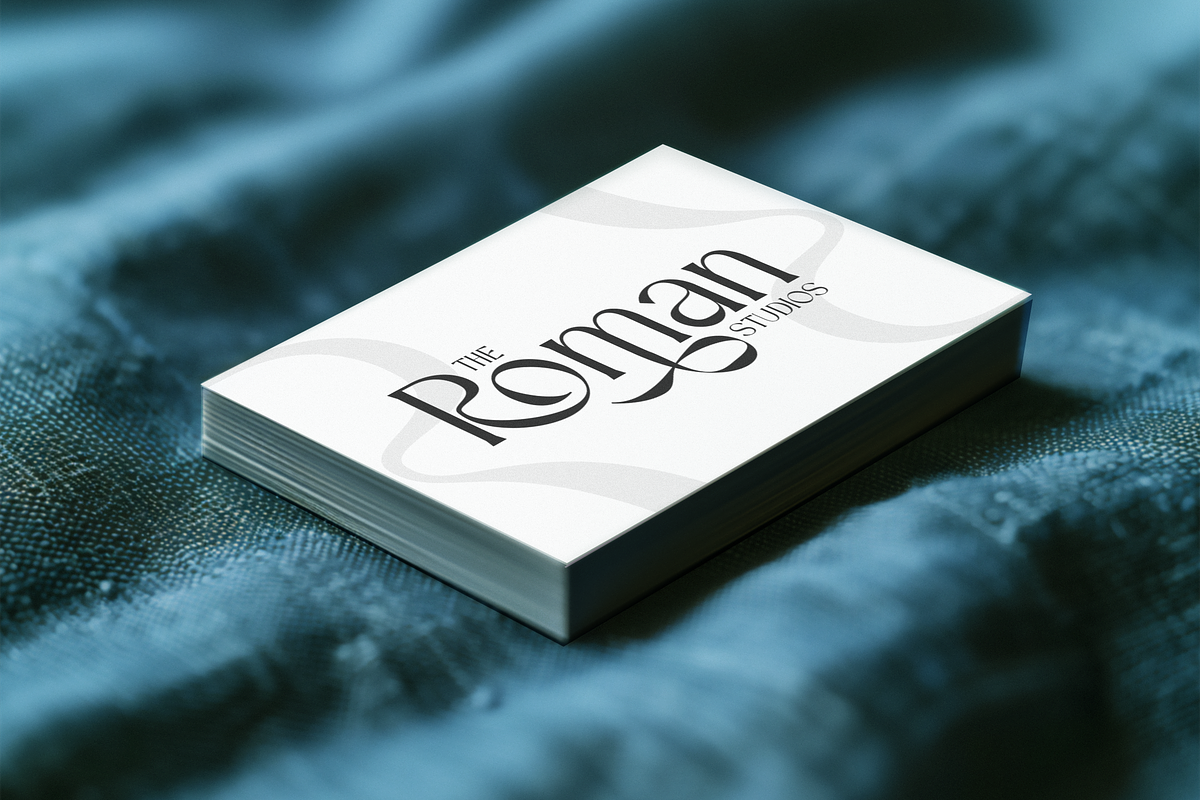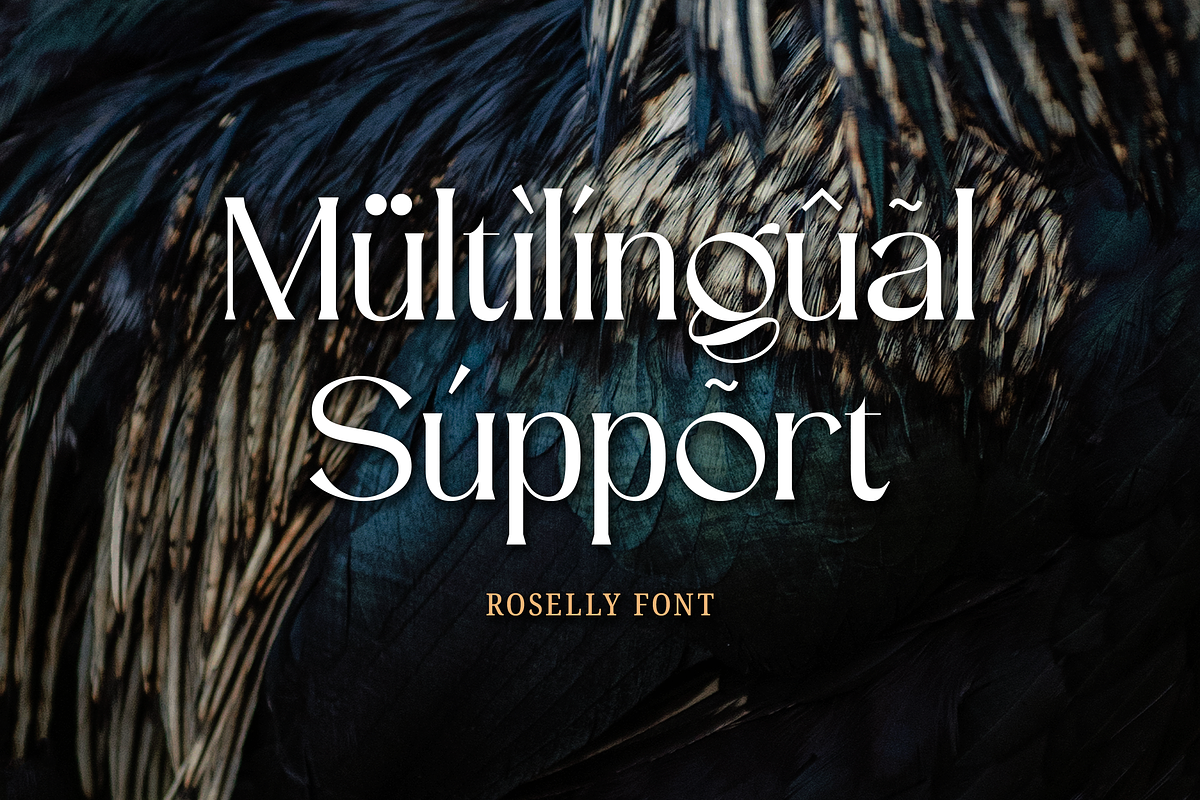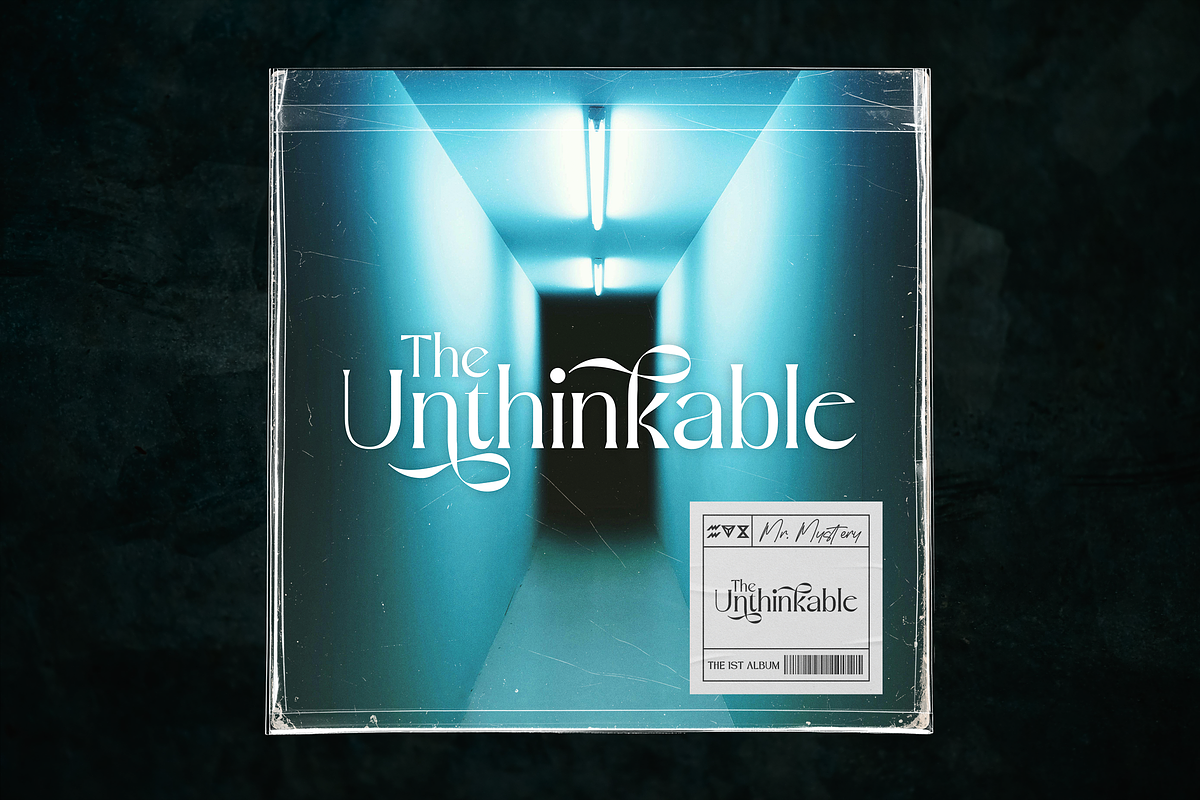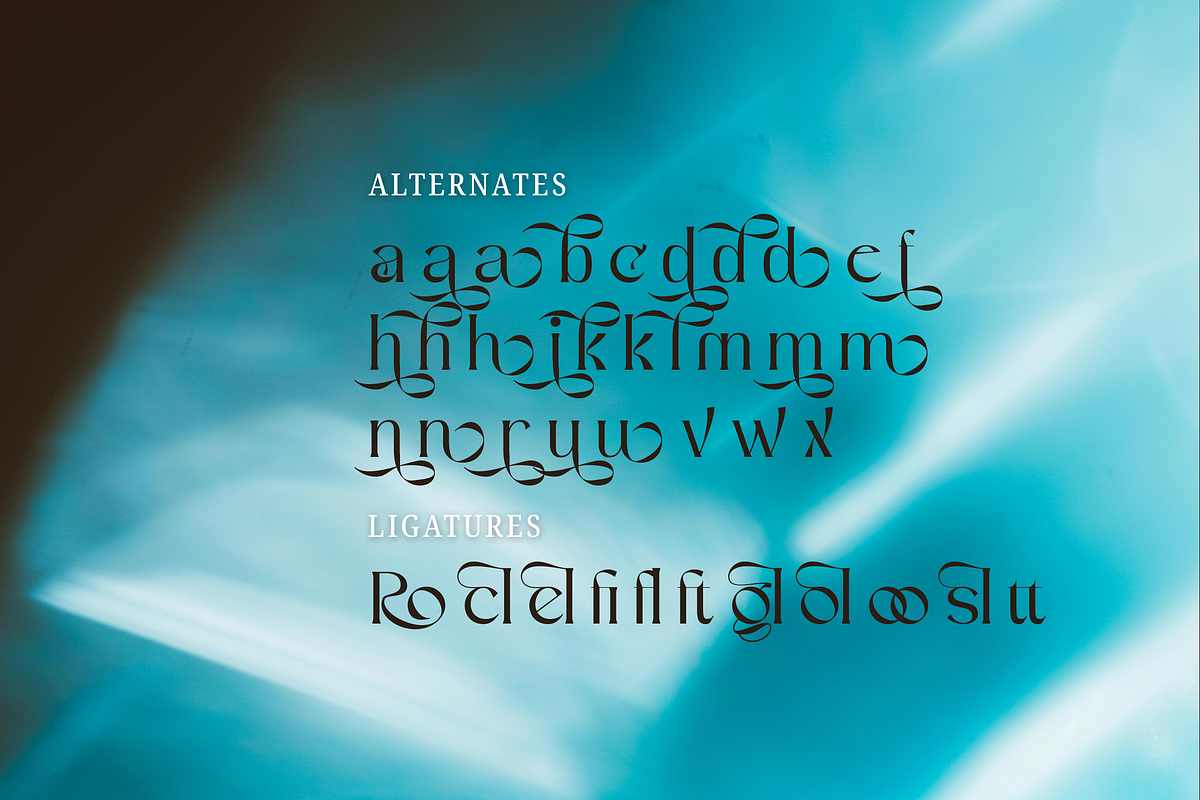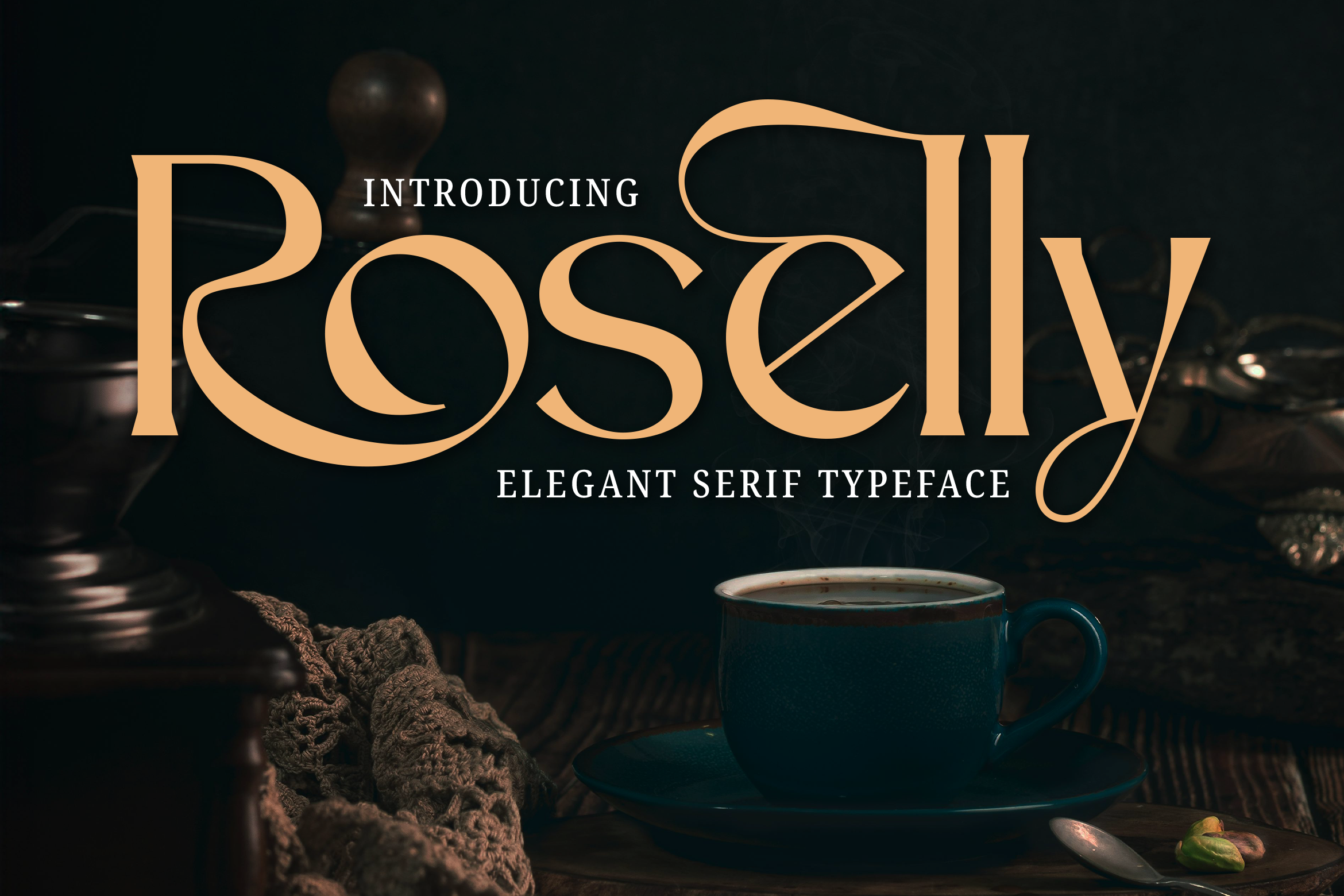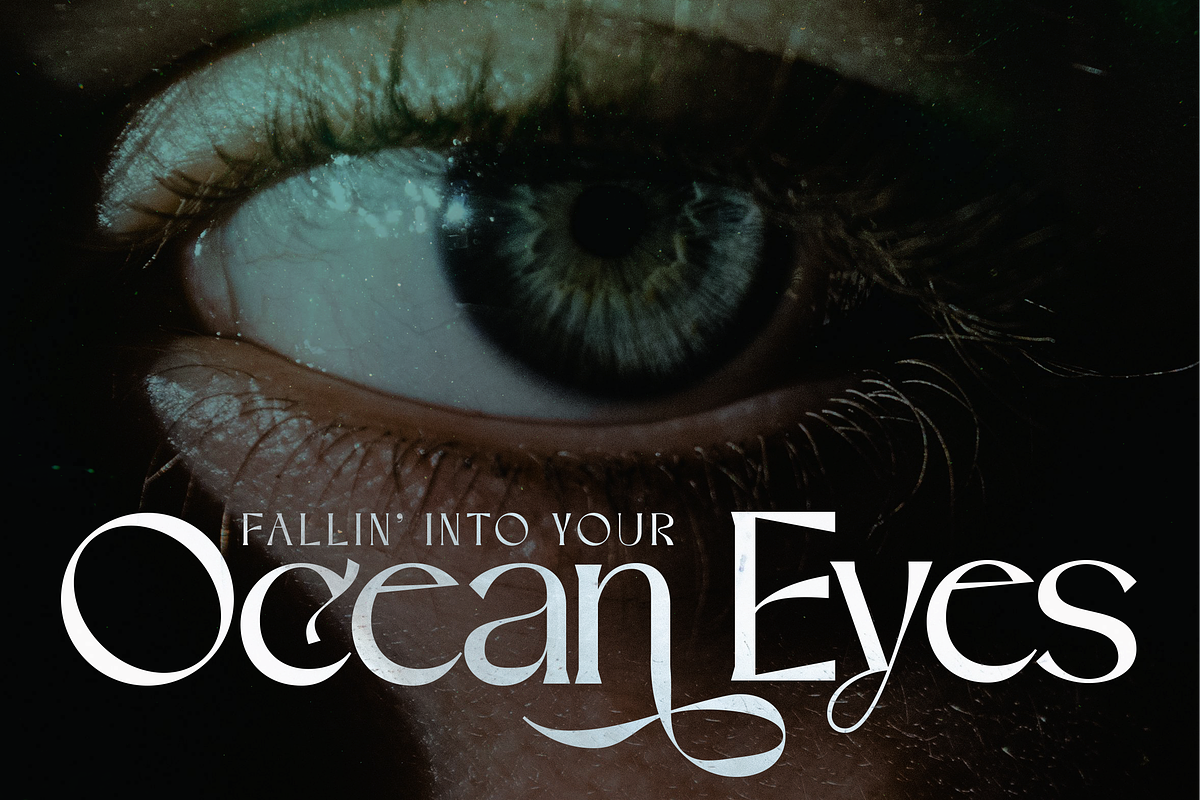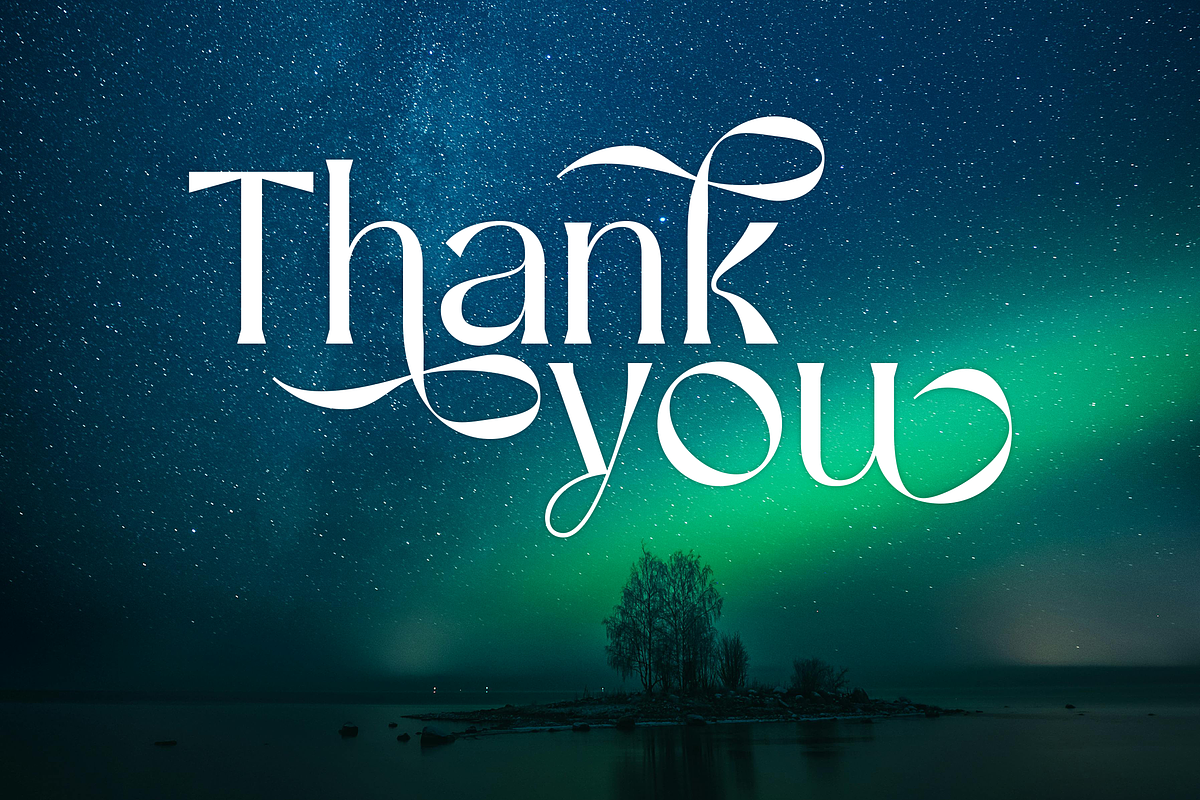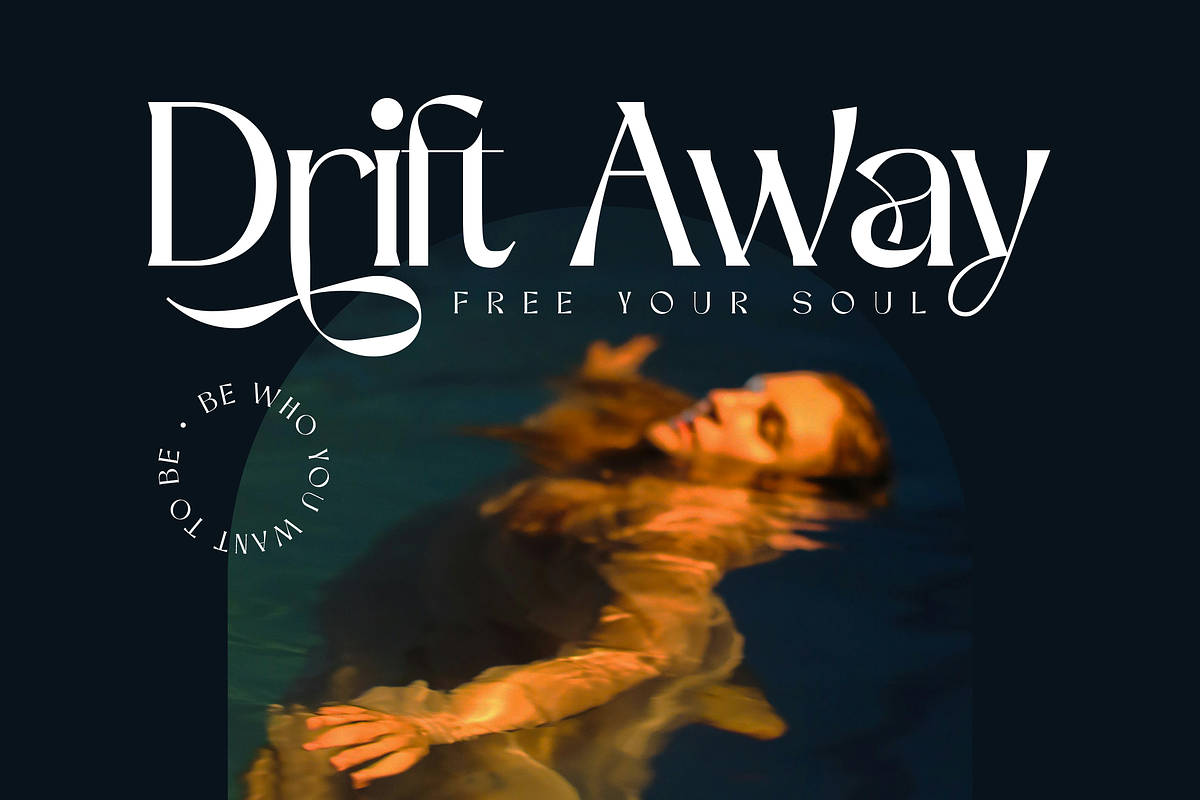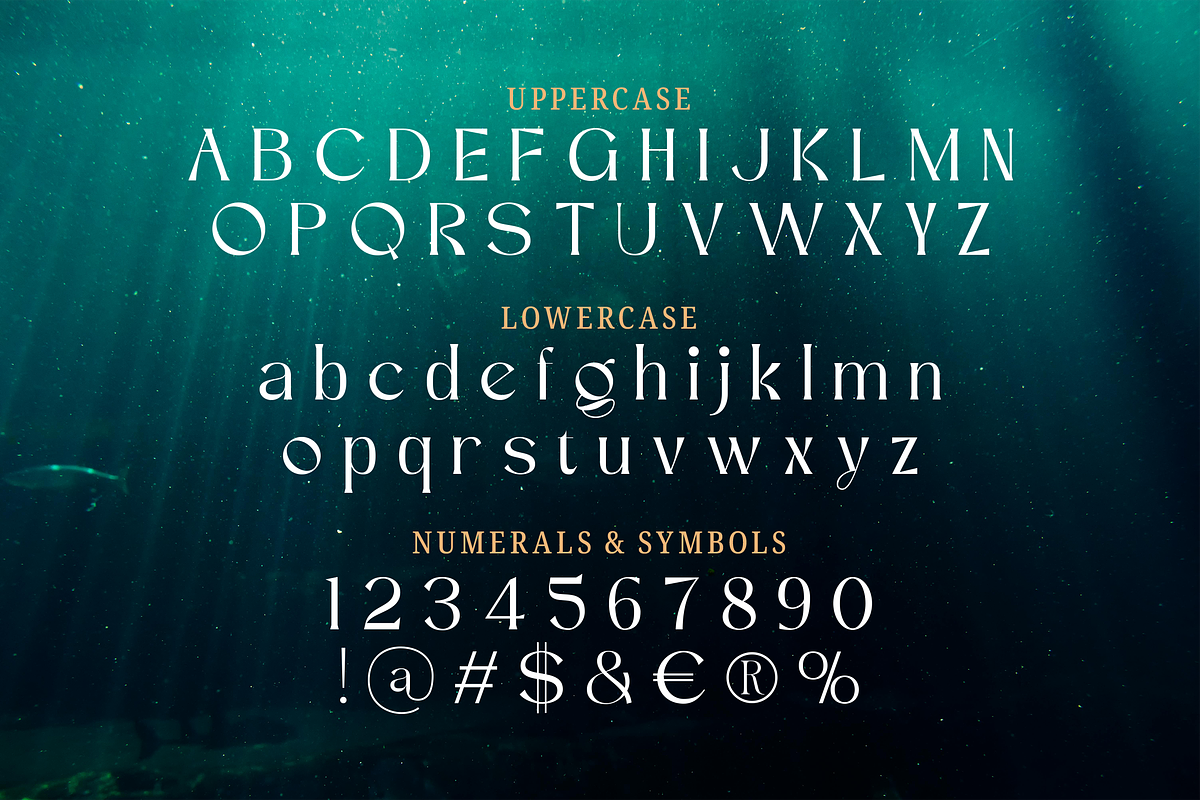
Roselly Serif Font
Introducing Roselly - Elegant Serif Typeface Font.
This refined and graceful serif is perfect for a wide range of creative projects and promotions. Use it on your website, for social media branding, editorial layouts, packaging, invitations and more.
Impress your audience, clients or guests with Roselly’s timeless elegance and beautifully balanced letterforms.
\* Multilingual & Ligature Support
\* Full sets of Punctuation and Numerals